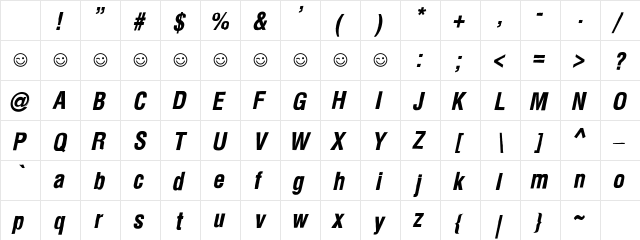
Newside FP is a composed and adaptable typeface that performs quietly and consistently across a wide range of design contexts. The slanted form adds forward momentum and visual energy.
Pro Tip: Use Newside FP for emphasis, pull quotes, and subheadings where its slanted energy can add rhythm to the layout.